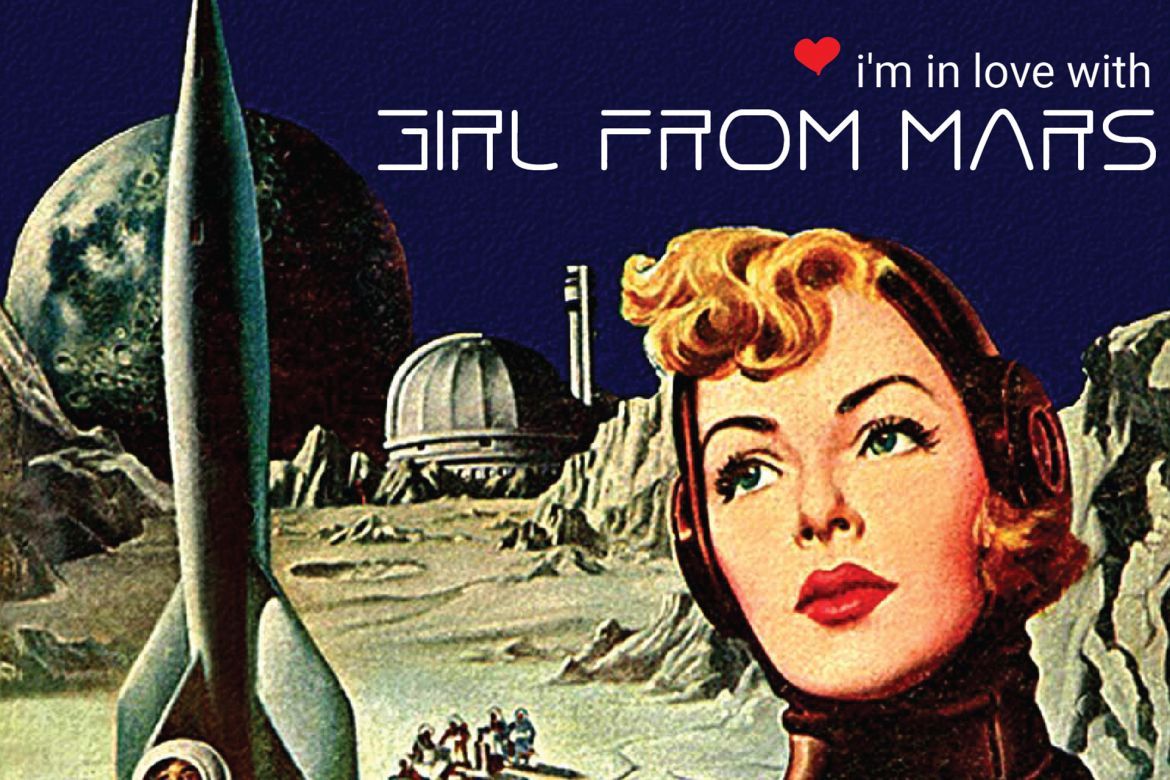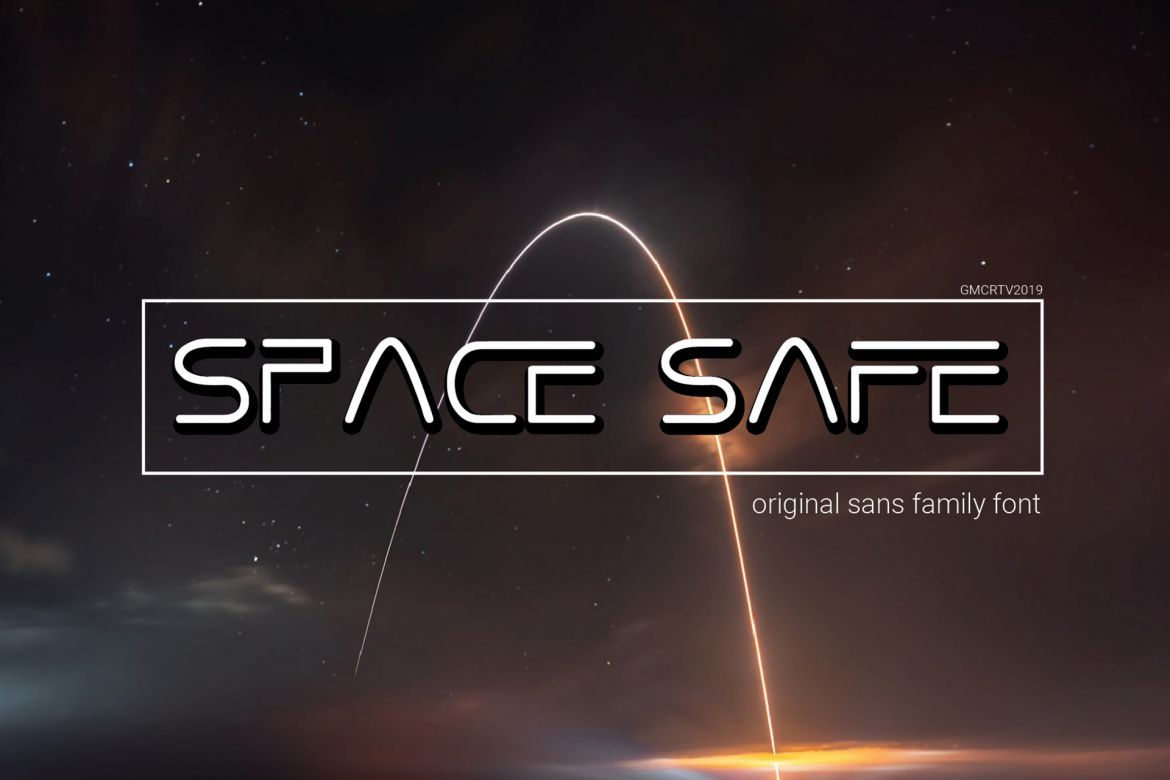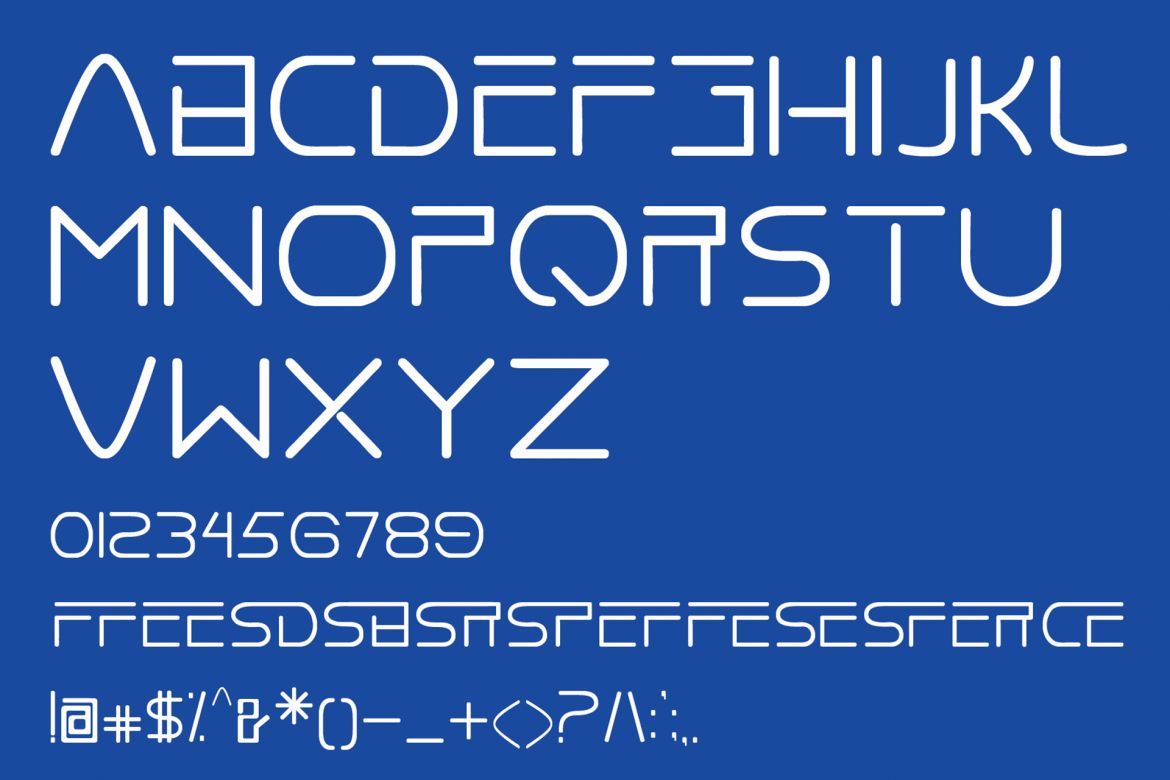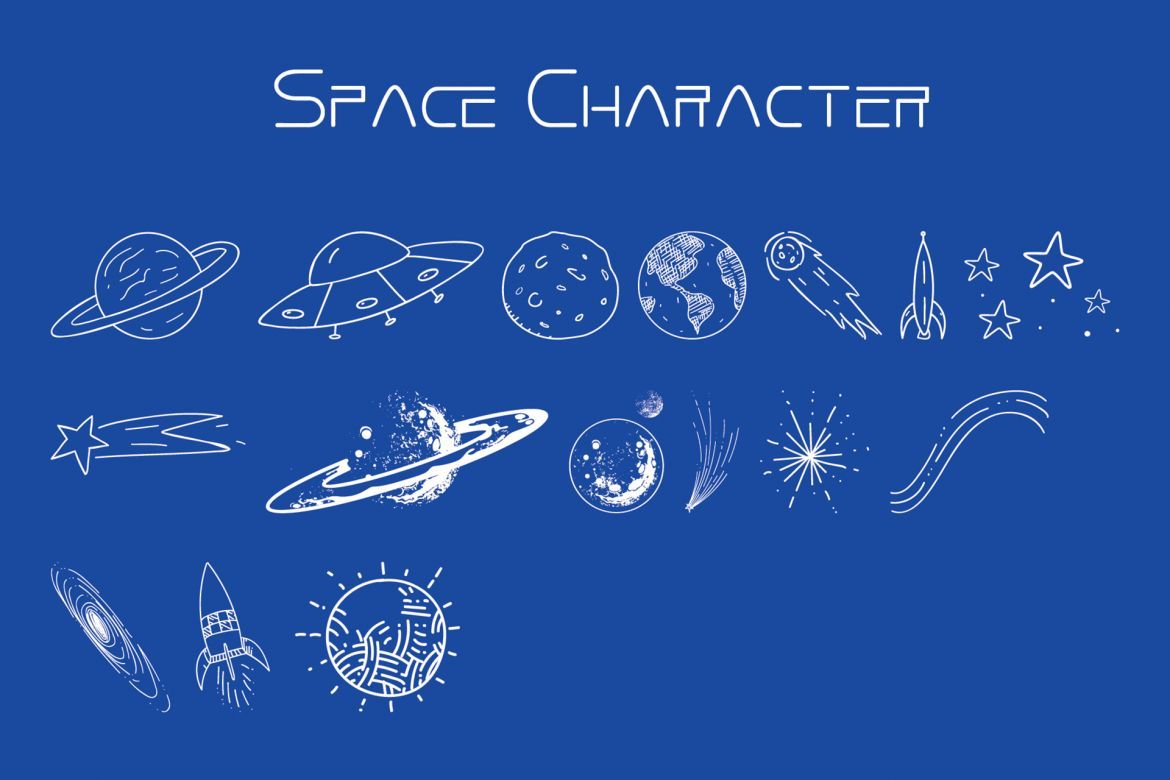
Aero Space Futuristic Font
---AERO SPACE FONT---
Inspired from the retro comic poster, we create a space font design theme. here is a AERO SPACE font it's perfect for you to give your poster design with authentic touch.
USE Aero space works great in any poster, logos, magazines, films, banner.
• original hand drawn
• perfect for give your design futuristic style